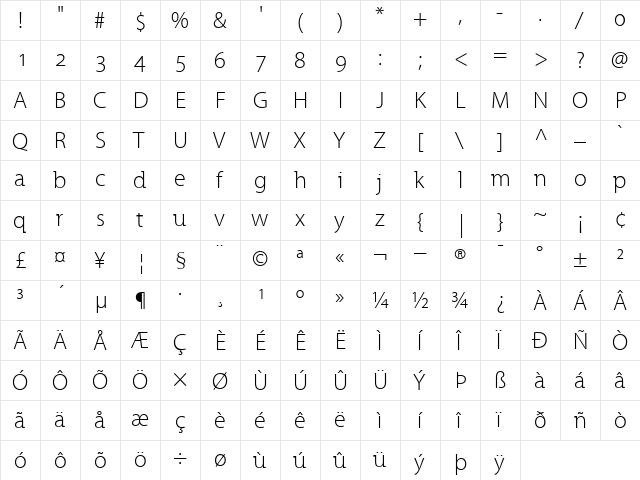
Grandesign Light Normal
Design Context for Grandesign Light Typeface
Grandesign Light offers clean, dependable letterforms without strong stylistic allegiance, making it a practical choice for designers who need flexibility. Its slender proportions lend an understated elegance to any composition.